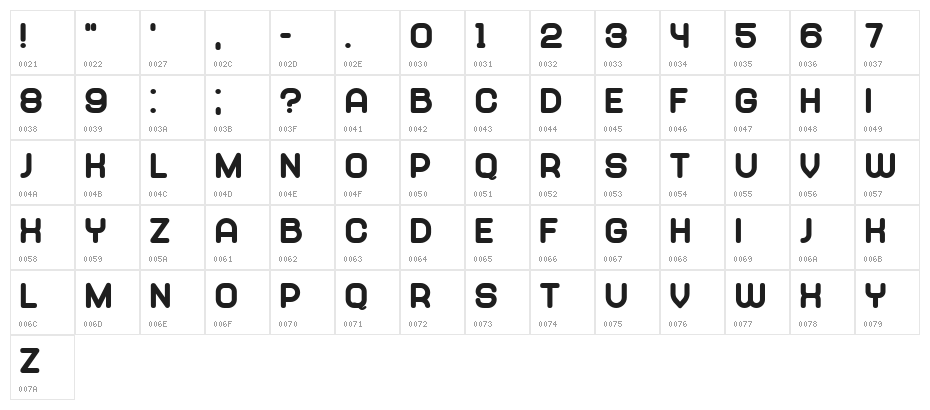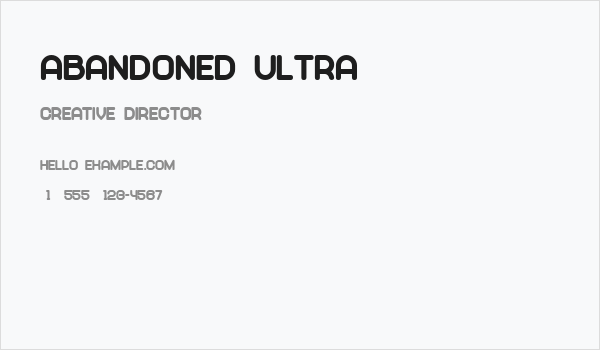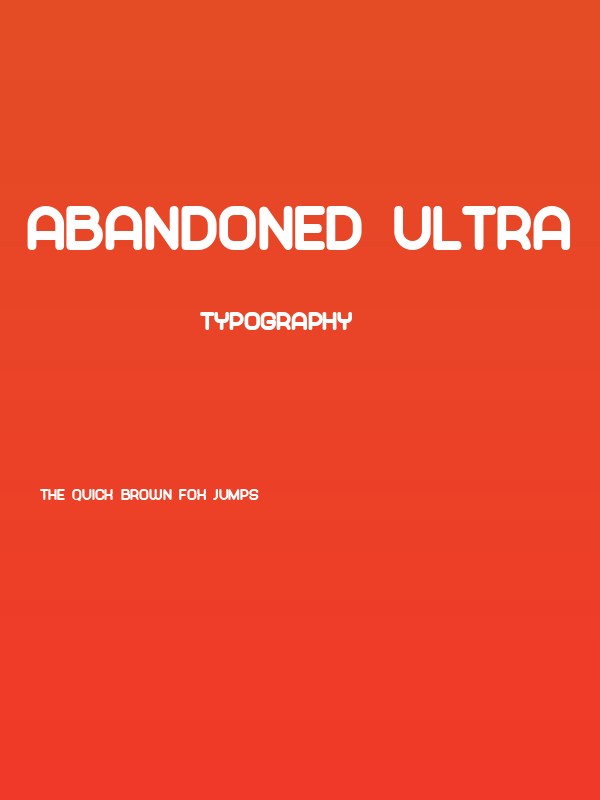
Abandoned Ultra Font
Abandoned Ultra Description
This font features a bold and rounded style, characterized by its thick strokes and smooth curves. The letters are uniformly wide, giving it a strong and impactful appearance. The rounded edges add a friendly and approachable feel, while the consistent stroke width ensures clarity and readability. The numerals and special characters maintain the same bold and rounded aesthetic, ensuring a cohesive look across all characters. This font is highly legible and stands out due to its substantial weight and modern design.
Proposed ProjectsIdeal for branding, headlines, posters, and signage where a strong and modern presence is desired.